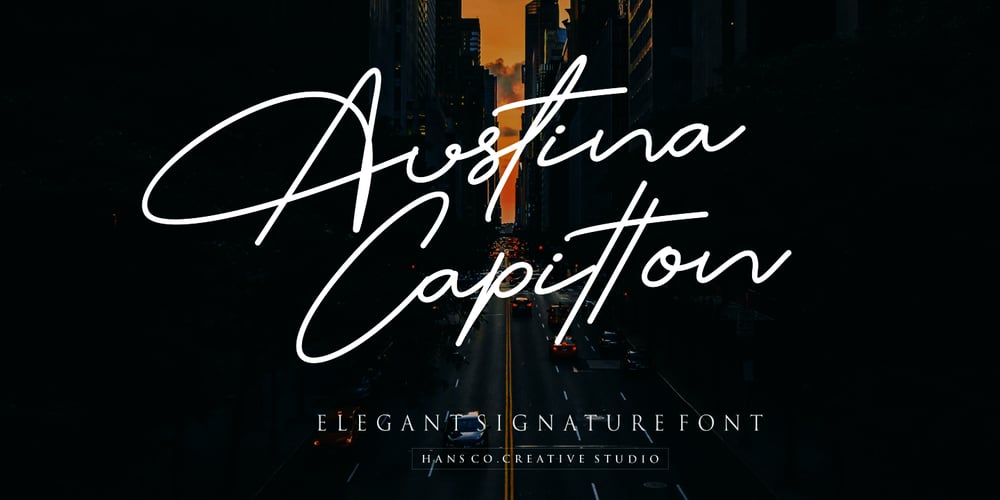
Austina Capitton
Austina Capitton font
Austina Capitton Font Family was designed by Burhan Afif and published by HansCo. Austina Capitton contains 2 styles and family package options. Austina Capitton is our new modern, clean, and stylish monoline signature font and was created to look as a naturally handwritten as possible. Built with unique style in OpenType features, this script comes to life as if you are writing it yourself. This font is very suitable to be used to brand a product because if you write a brand name it will look like your company signature. Austina Capitton is perfect for photographers, bloggers, trademarks, magazines, fashion, logos, business cards and much more. There are two styles in this font package, they are Alt and Regular. You can use Regular style if you like the curve of the font or you can use Alt style if you like simple and minimal ones.It’s highly recommended to use it in OpenType capable software – like a Coreldraw, Photoshop, Illustrator and Indesign. This font come with Uppercase, Lowercase, Numbers, Punctuation and swash. It offers Multilingual Support, works on Mac and Windows OS and is easy to install.Enjoy!